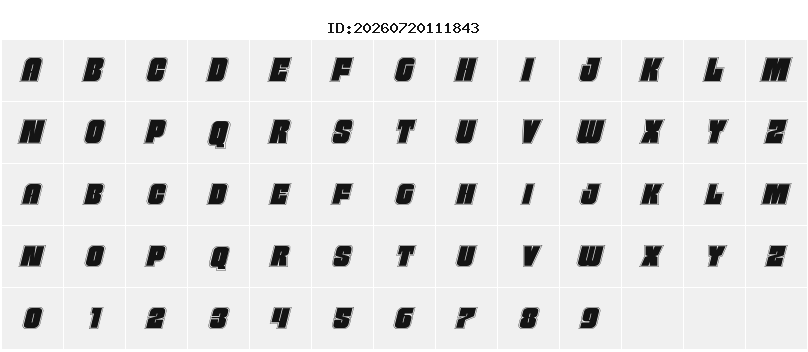
Funk Machine Academy Italic Preview
• Font Name: Funk Machine Academy Italic
• Full Font Name: Funk Machine Academy Italic
About Funk Machine Academy Italic.ttf
Funk Machine Academy Italic.ttf is a modern, elegant sans-serif font designed for ultimate readability and visual harmony. Perfect for branding, headlines, web design, and print materials.